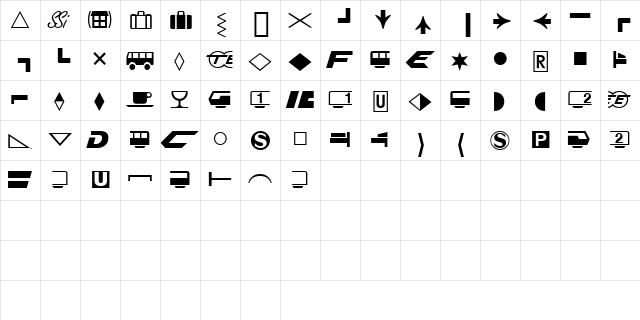
FormatPiThreeSSi Regular Font Preview
FormatPiThreeSSi Regular
Design Context for FormatPiThreeSSi Typeface
FormatPiThreeSSi is a composed and adaptable typeface that performs quietly and consistently across a wide range of design contexts.